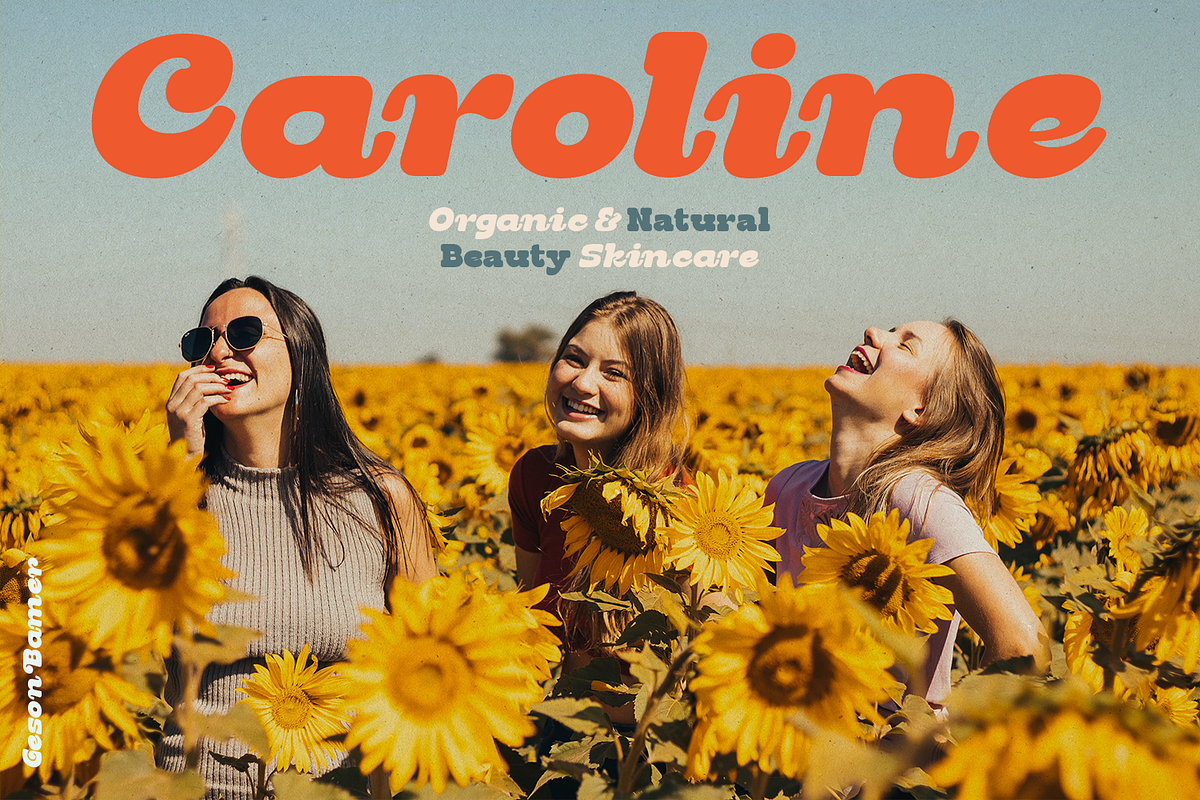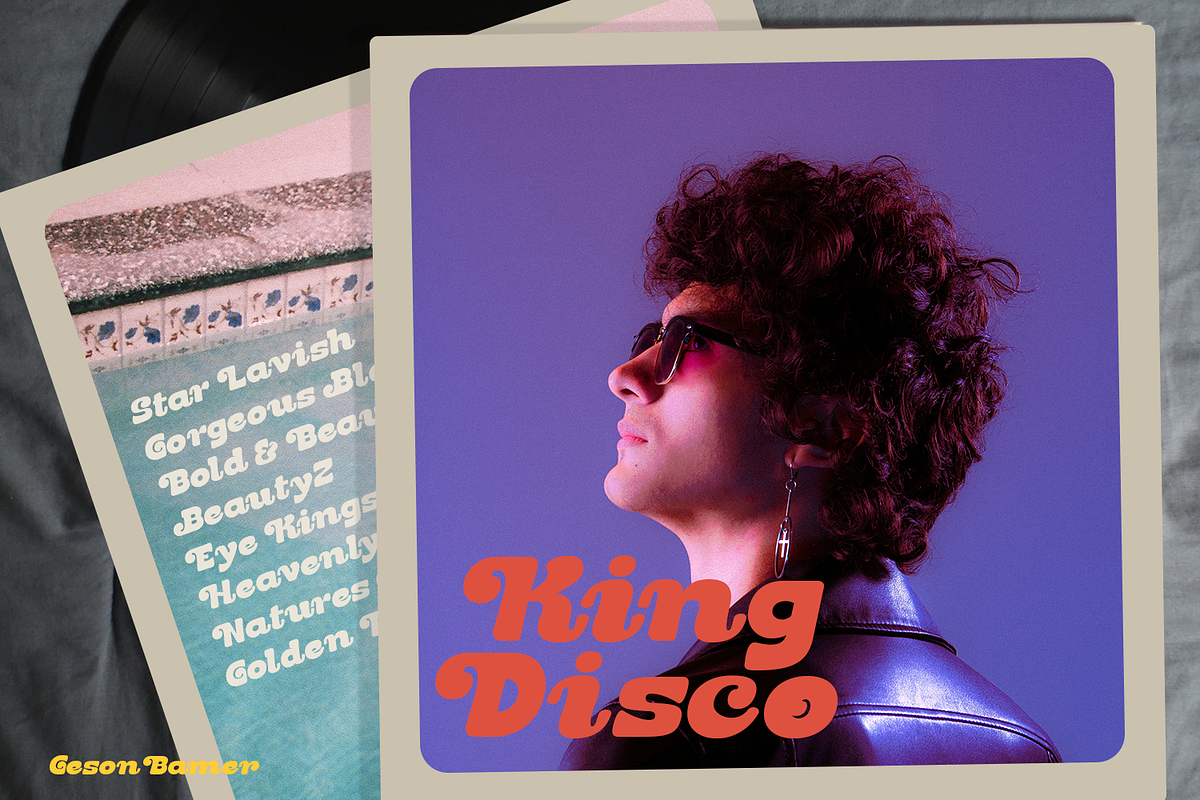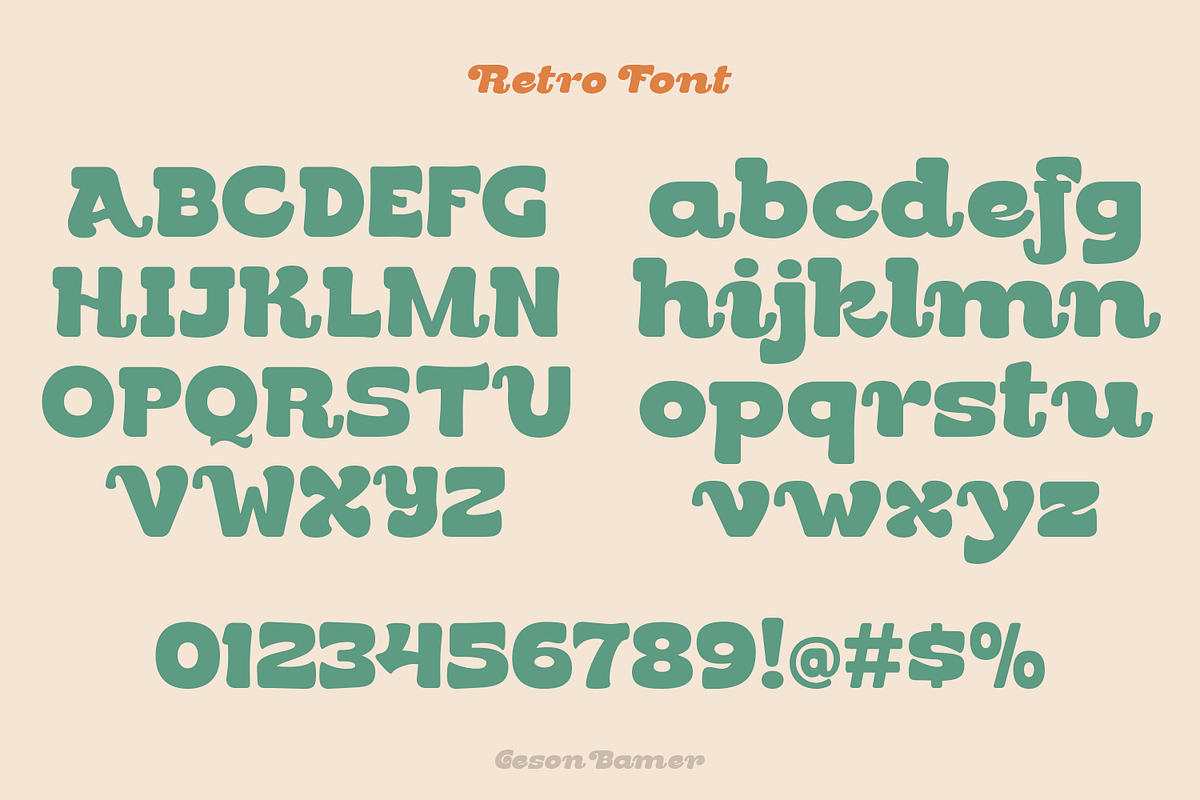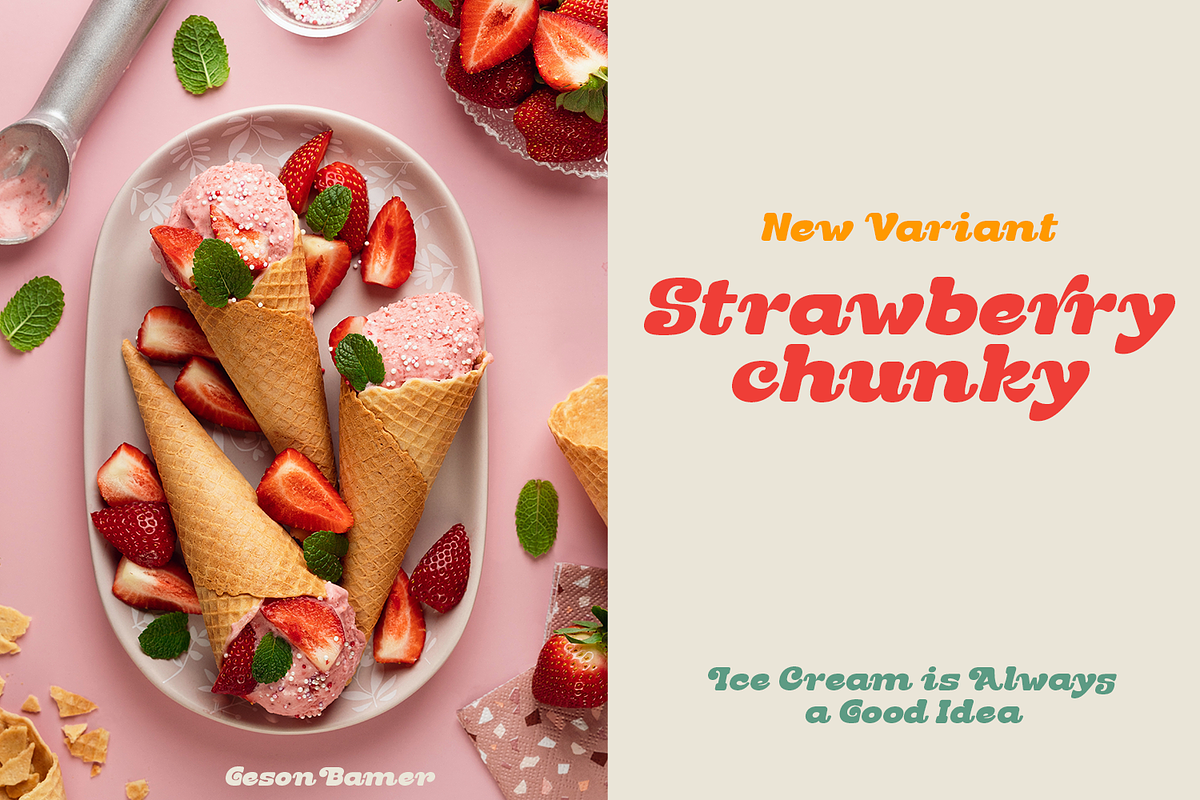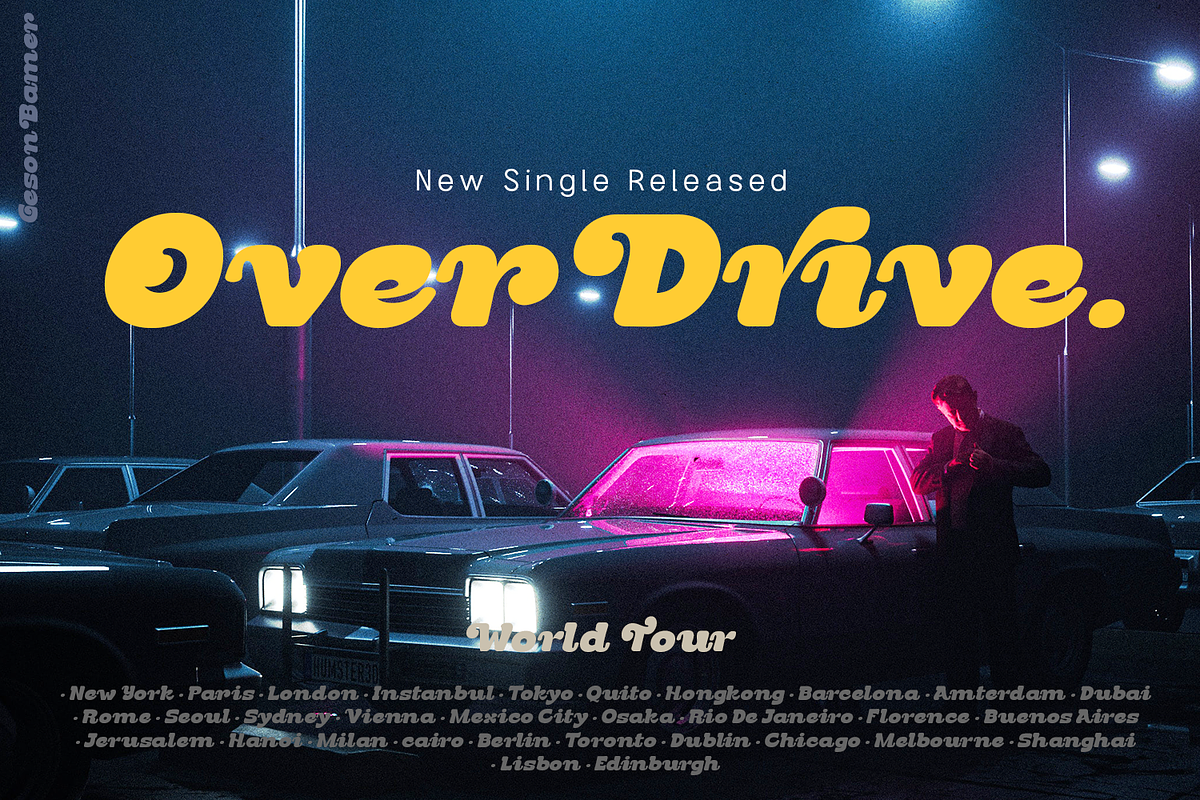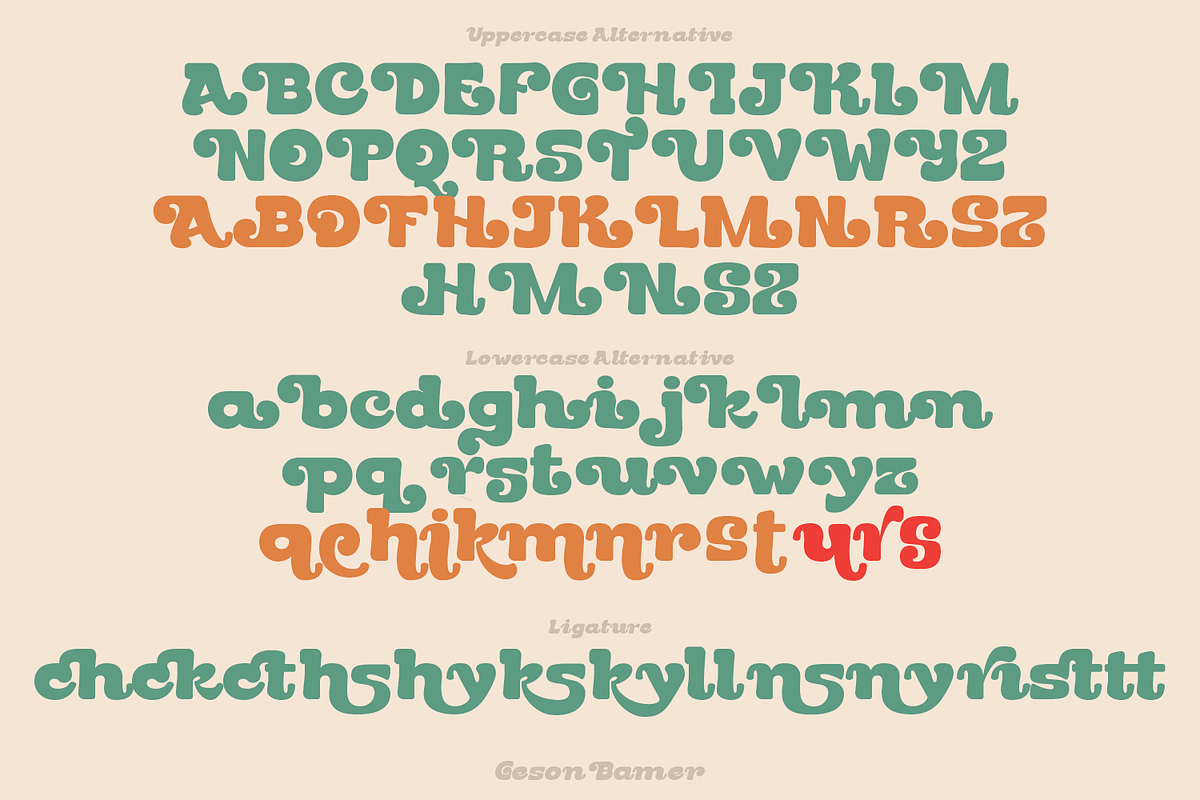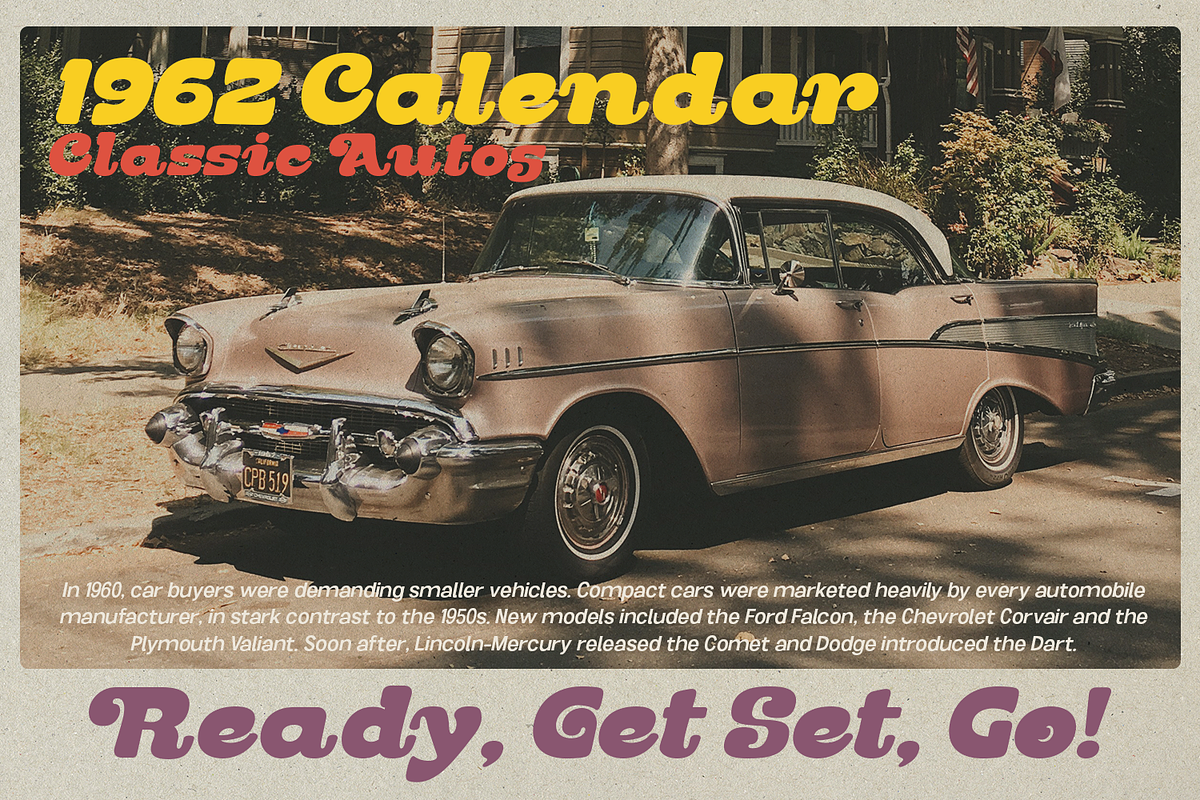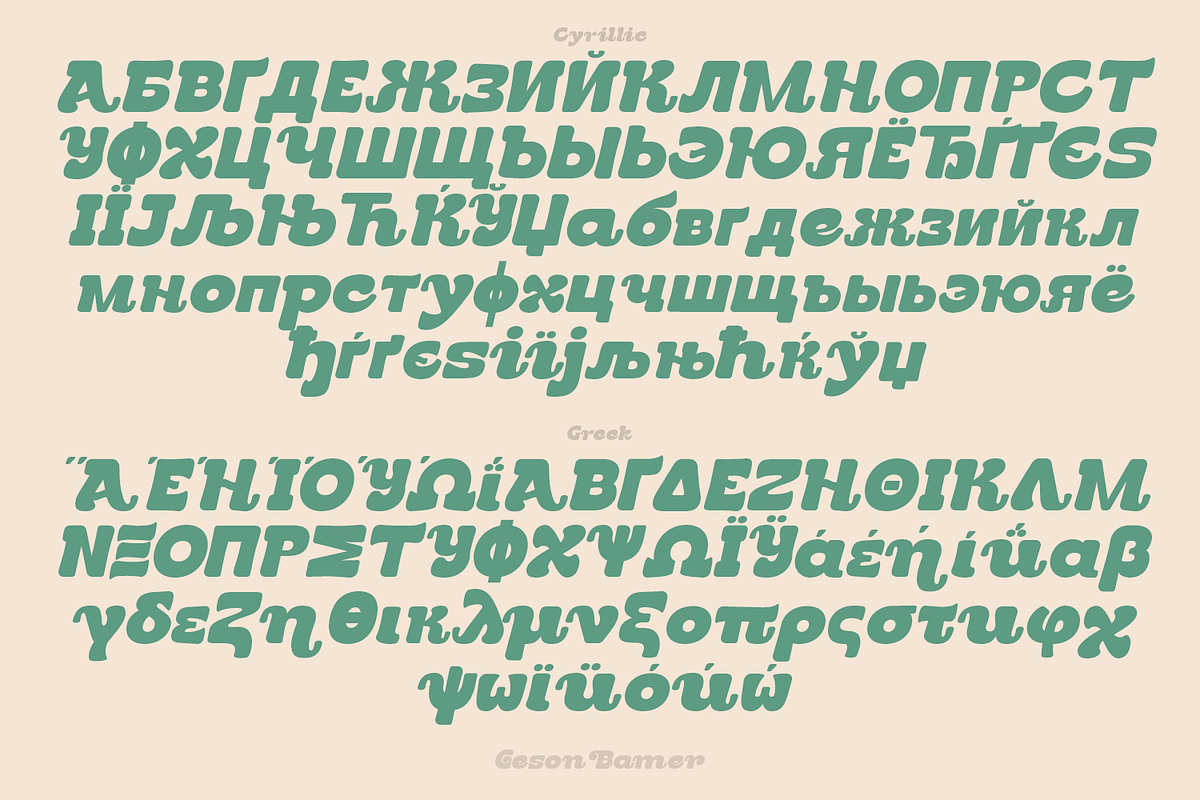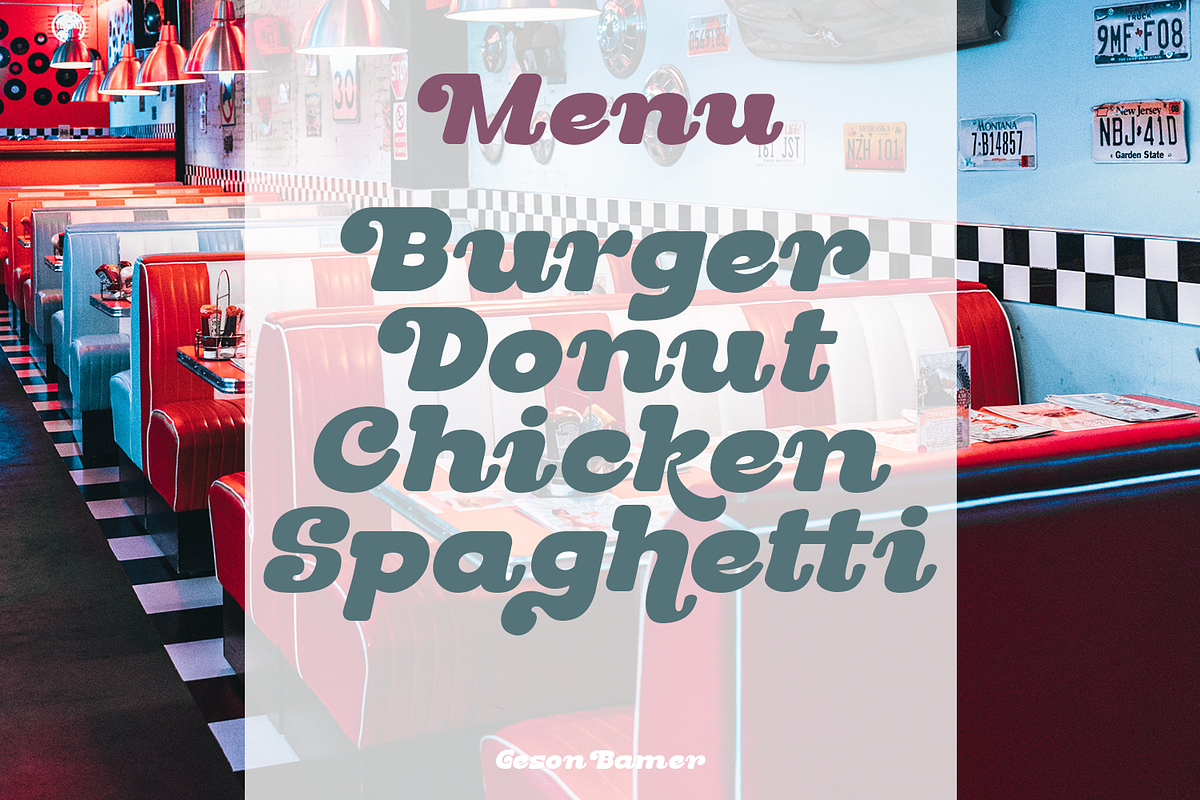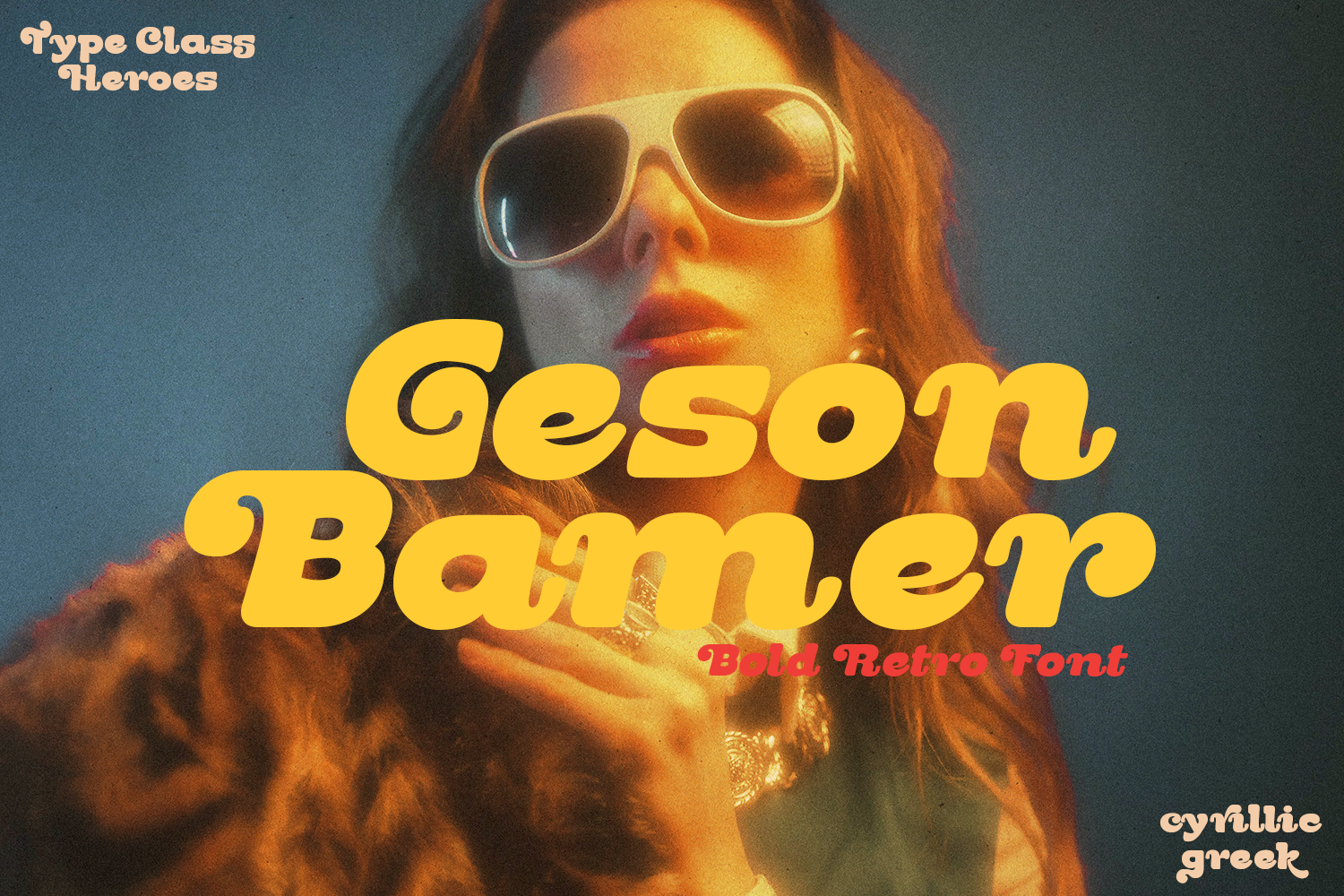
Geson Bamer - Retro Font
Geson Bamer is a retro font come with 80's retro style serif. Retro and refined you can explore and combine creating rhythm for comfortable reading. This font supports more than 100 Latin-based languages and has extensive Cyrillic and Greek support for languages like Russian, Bulgarian, Ukrainian, and many more.
- International Glyphs
- Cyrillic & Greek